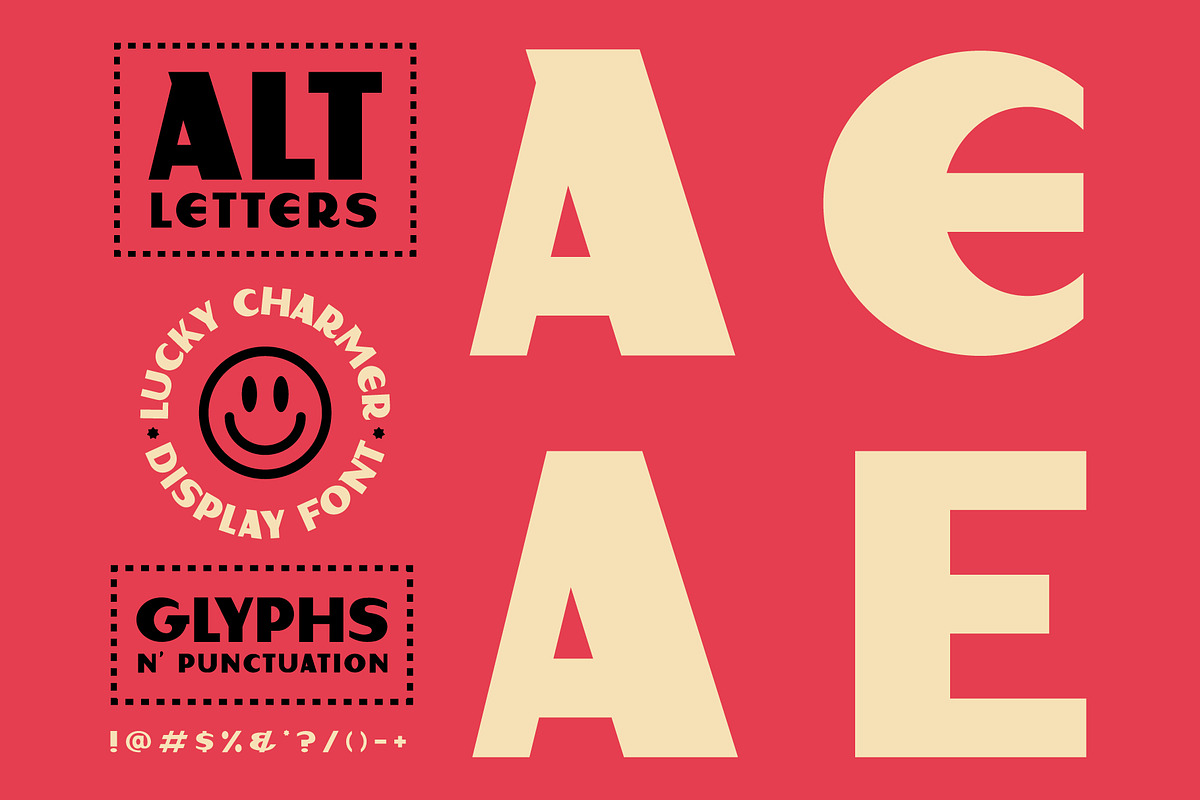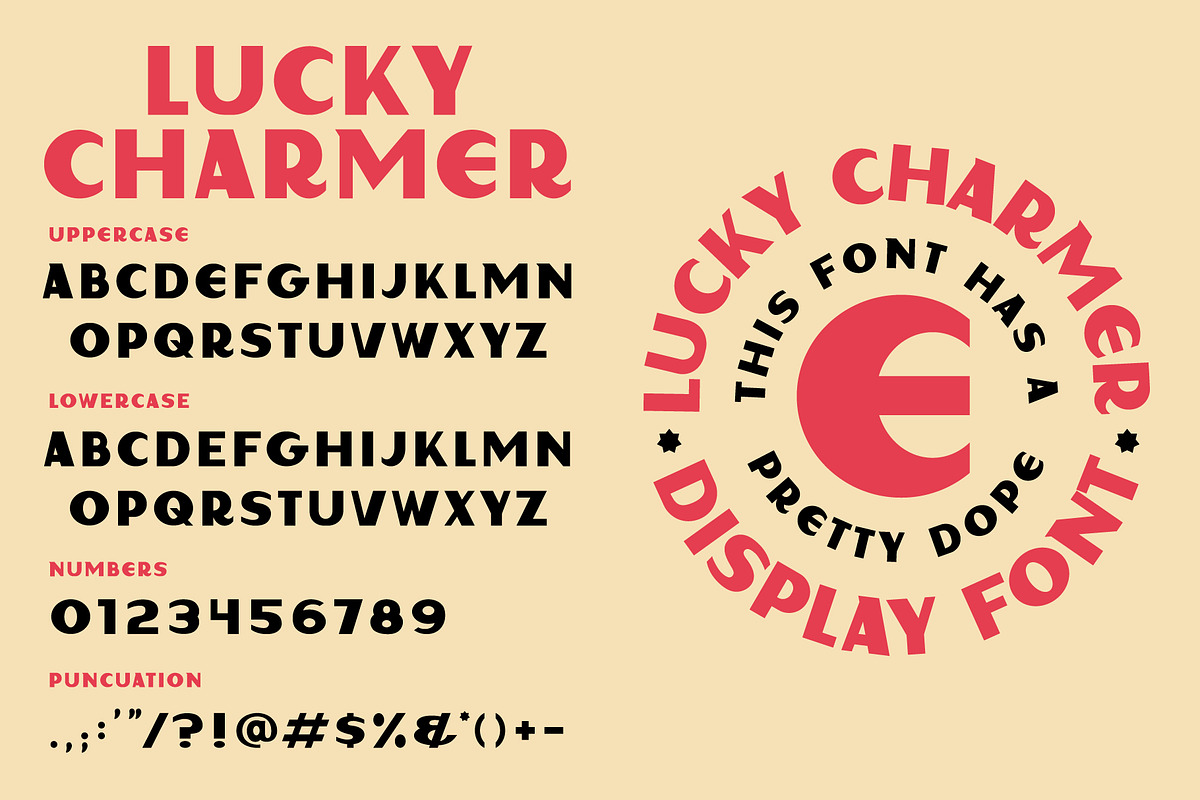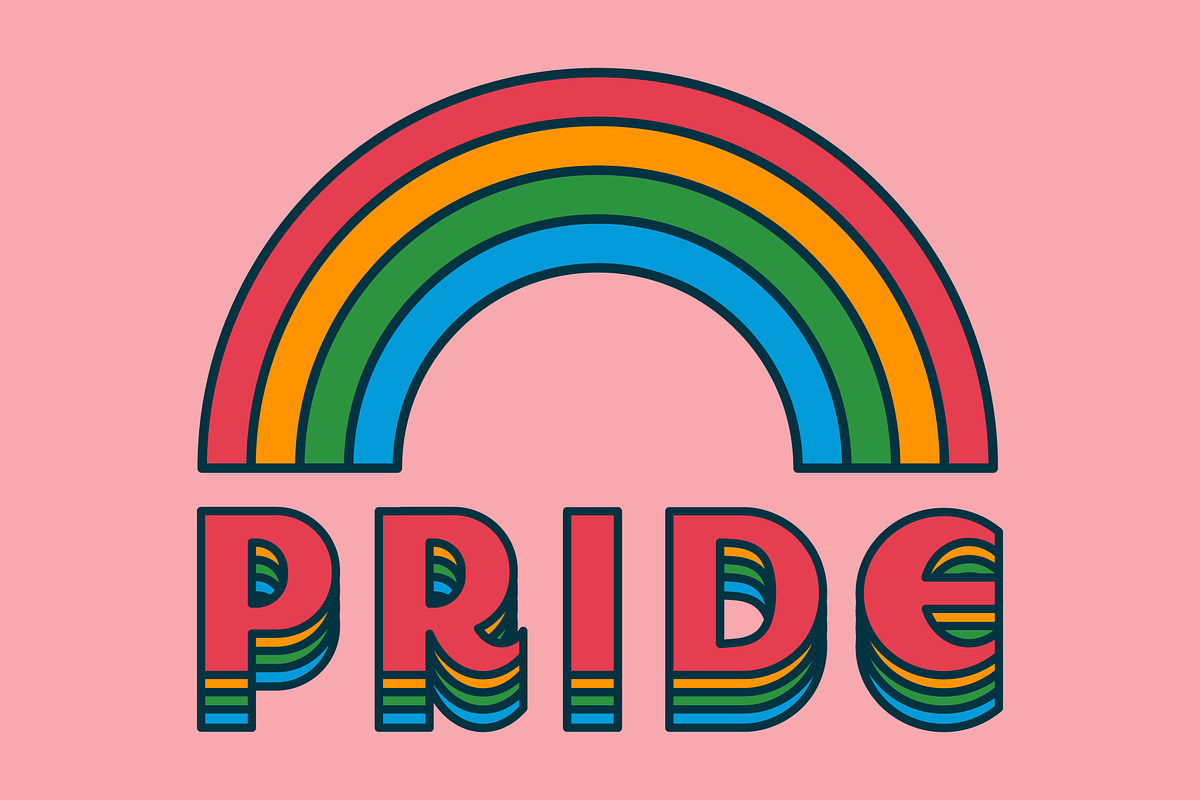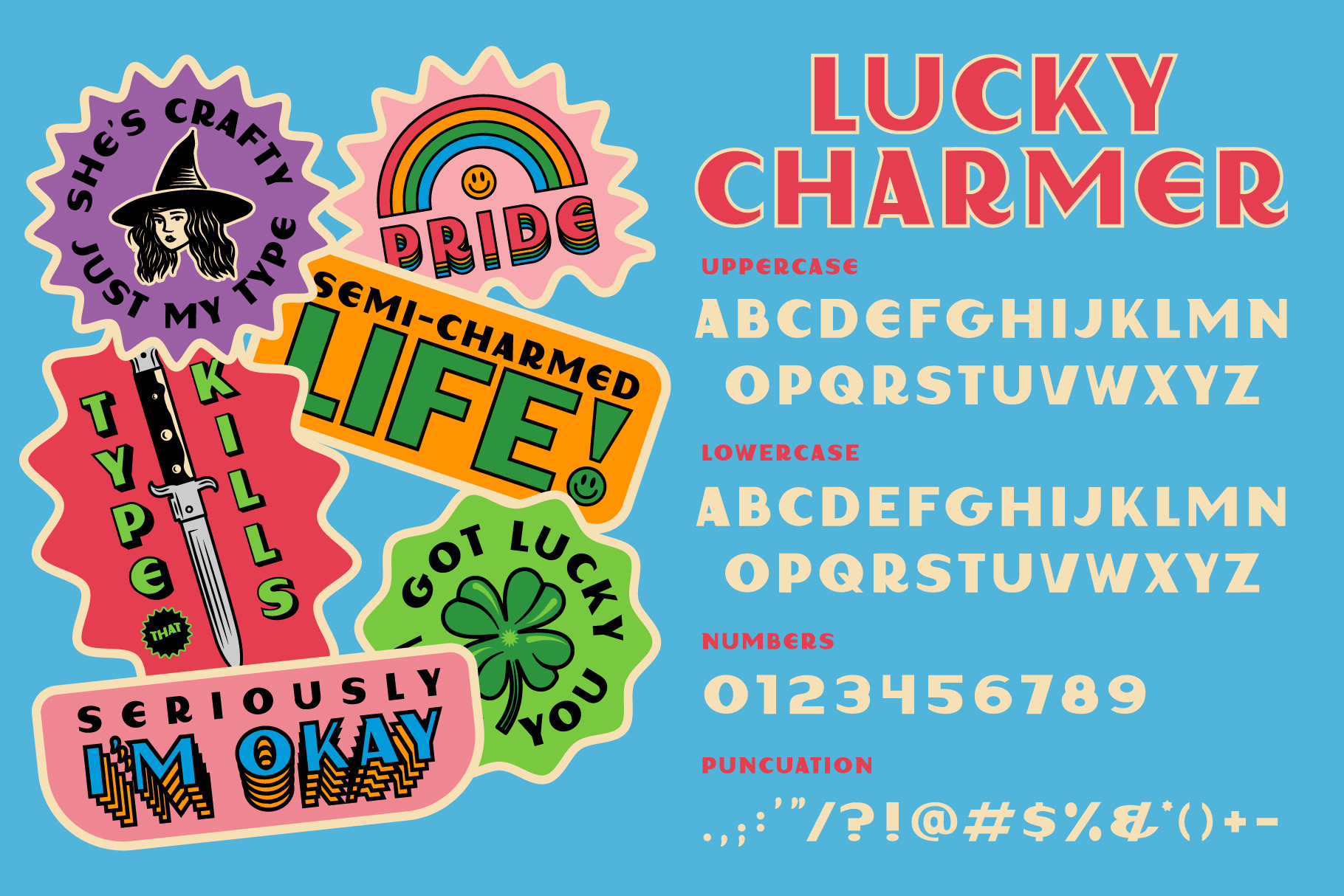
Lucky Charmer Display Font
Lucky Charmer is a clean sans with a medicinal vintage appeal. Great for packaging and branding, this witchy woman comes with two caps alphabets, numbers and punctuation.